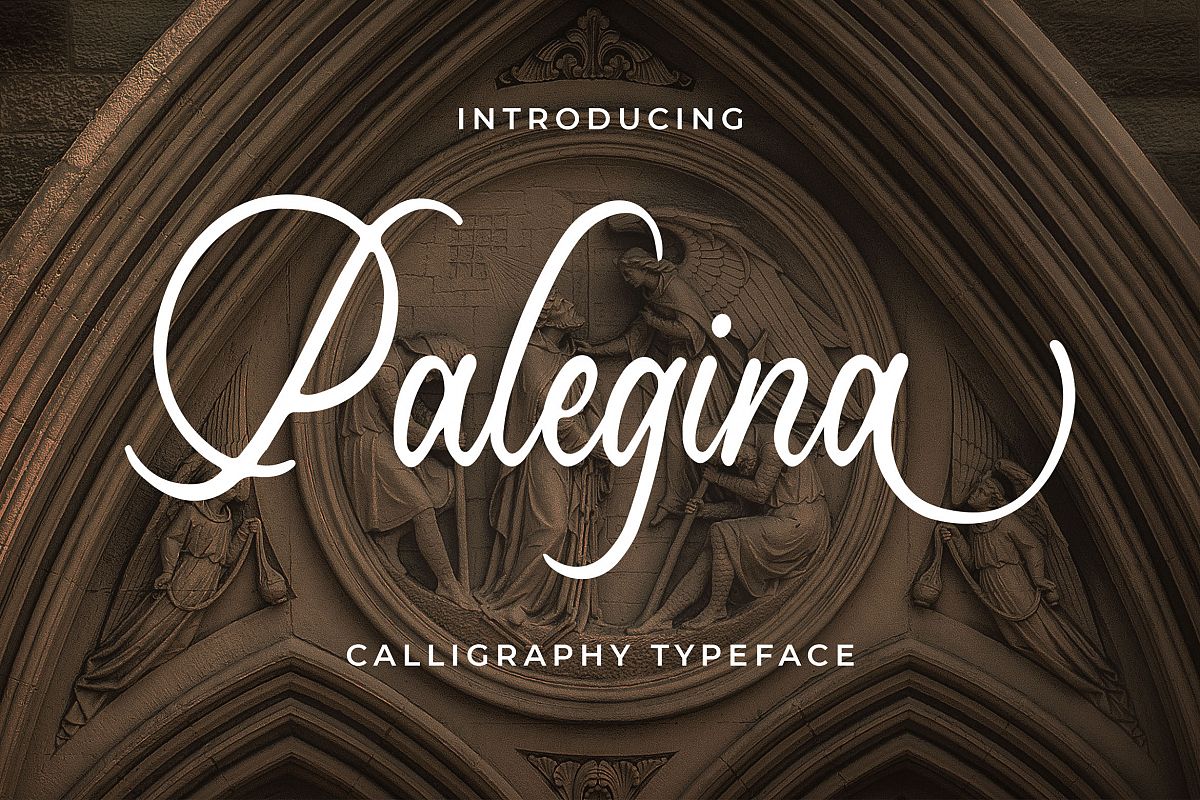
Introducing of our new product the name is Palegina Calligraphy Typeface. Palegina made by manual calligraphy into digital this Typeface is a romantic theme very good for logo, signature, poster, fashion, quote poster, flyer, landing page etc.